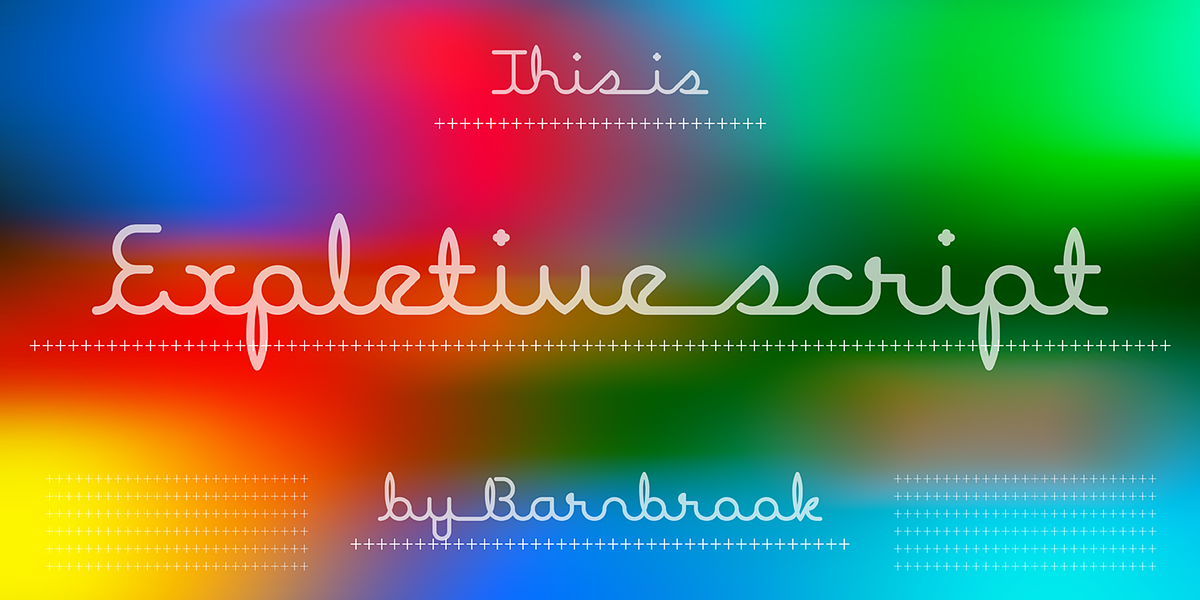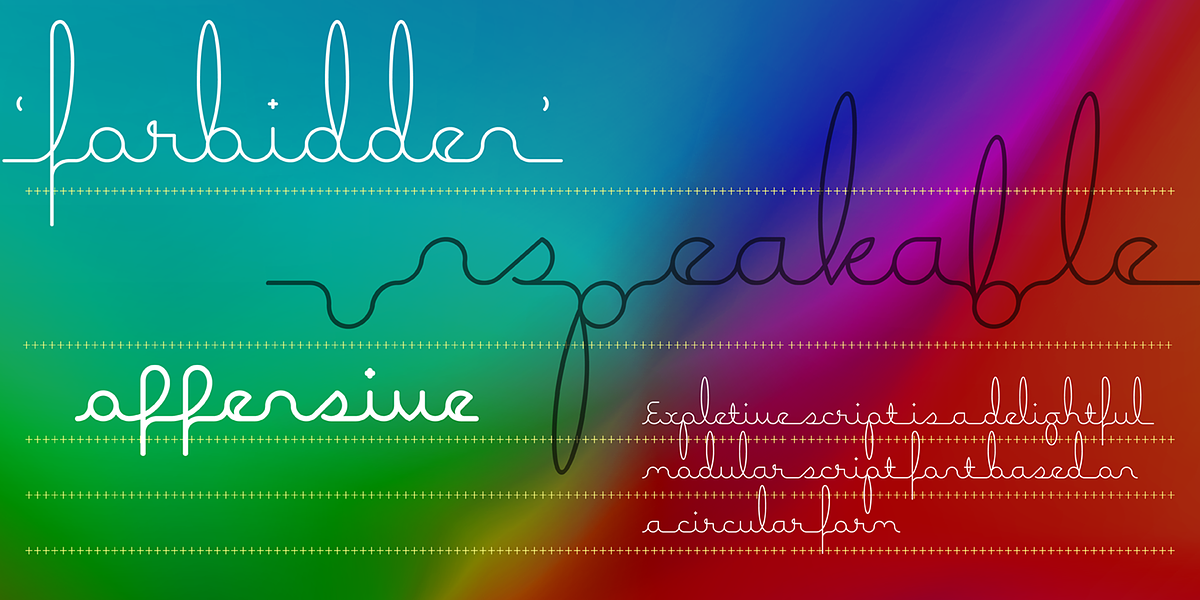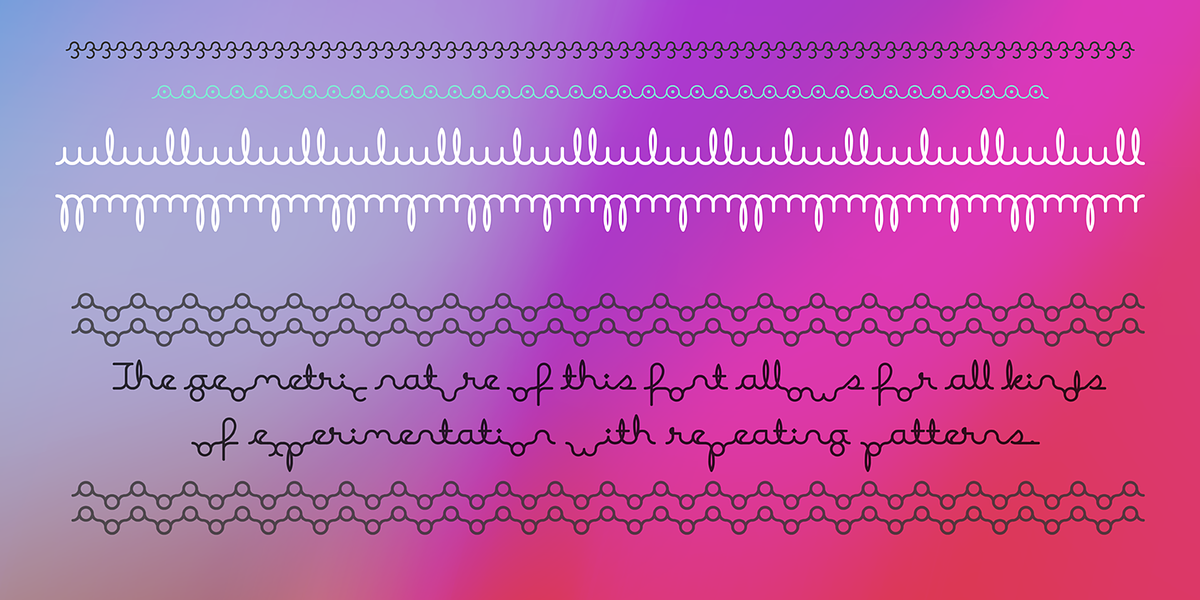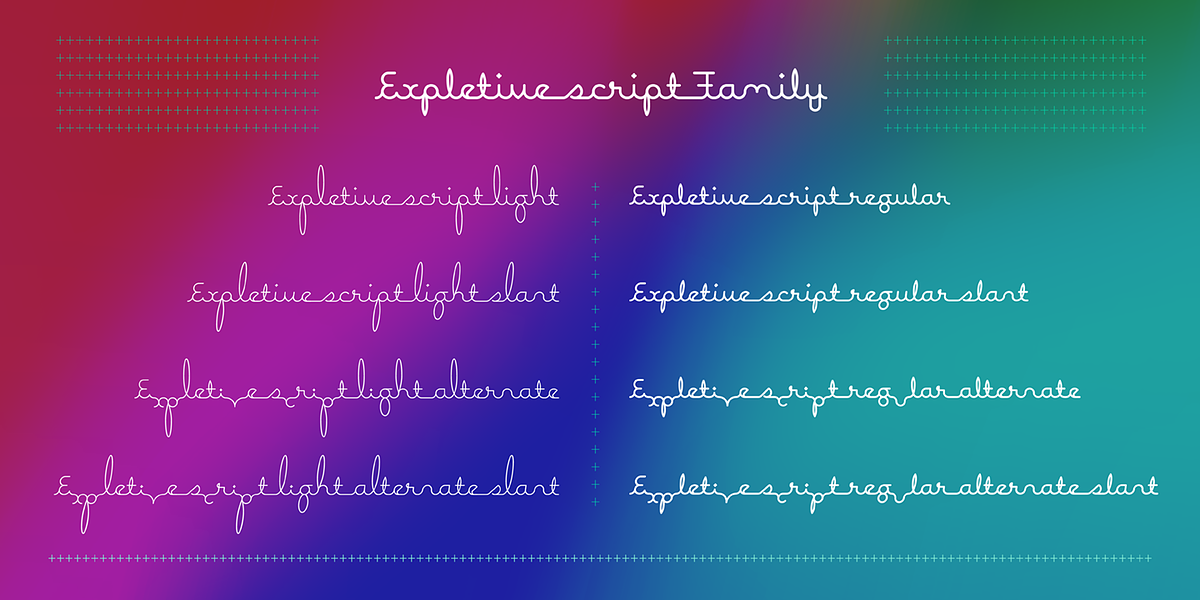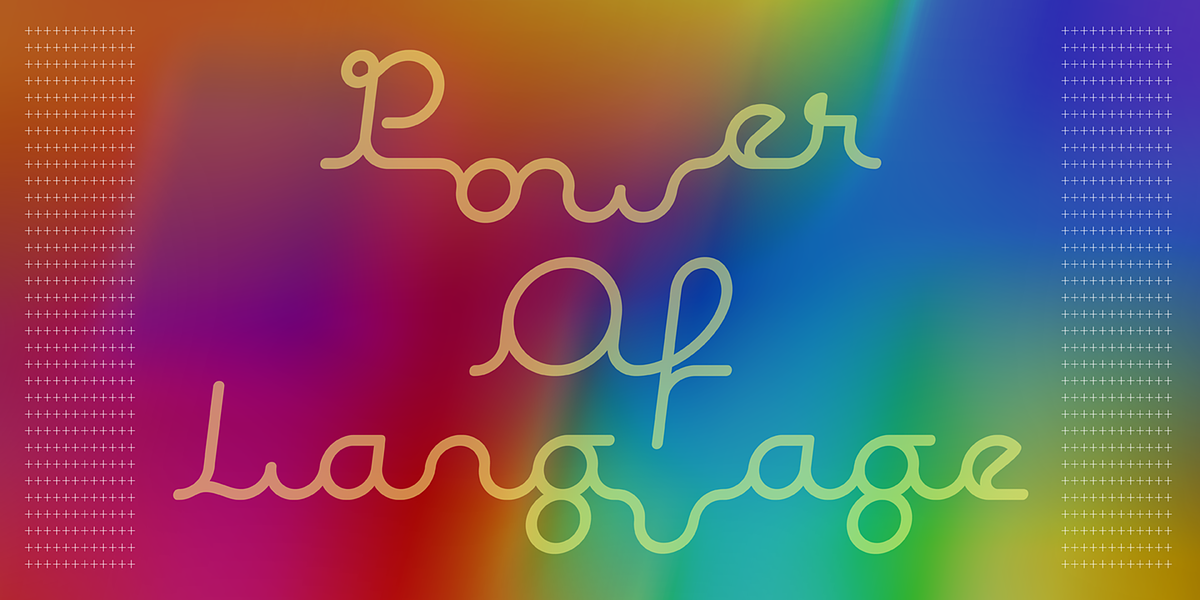
Expletive Script
Expletive Script is a casual script font characterized by its circular form. Characters can be positioned above or below the baseline for unique typographic effects and repeating patterns. Its simple geometry and playful spirit make it versatile for both expressive headlines and detailed design work.